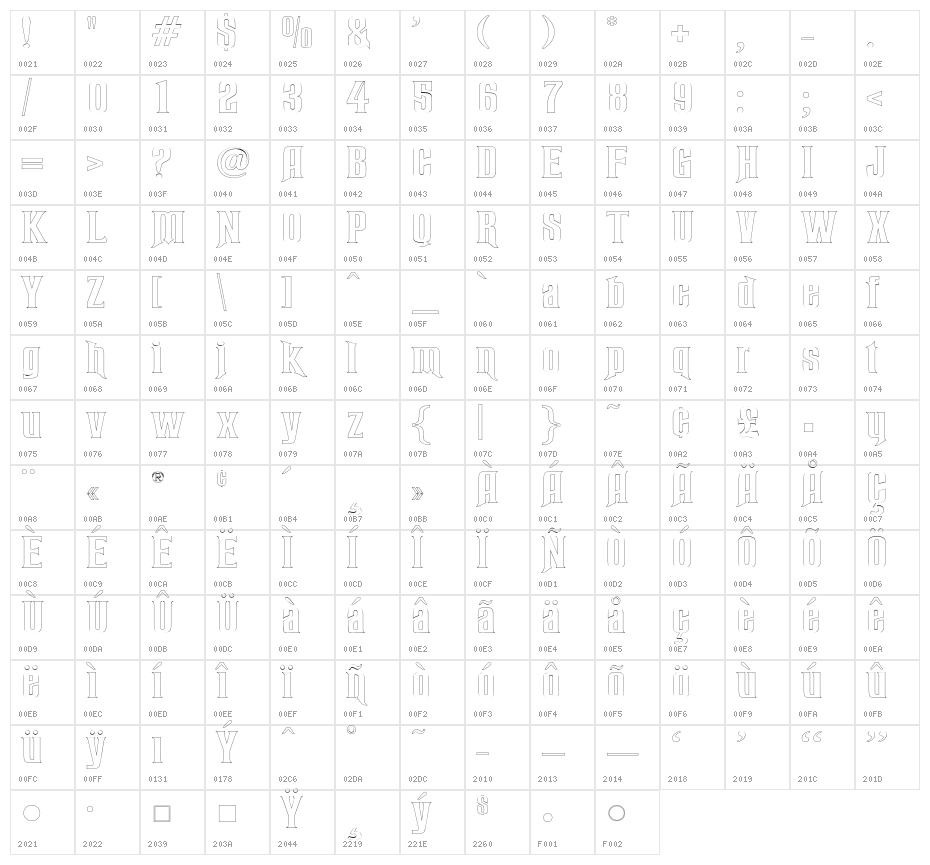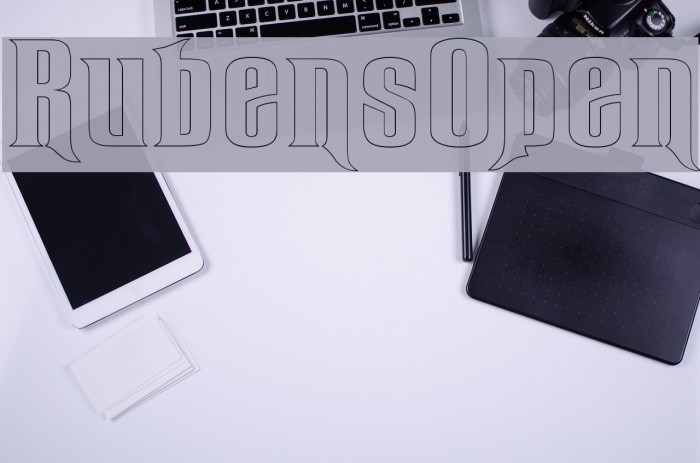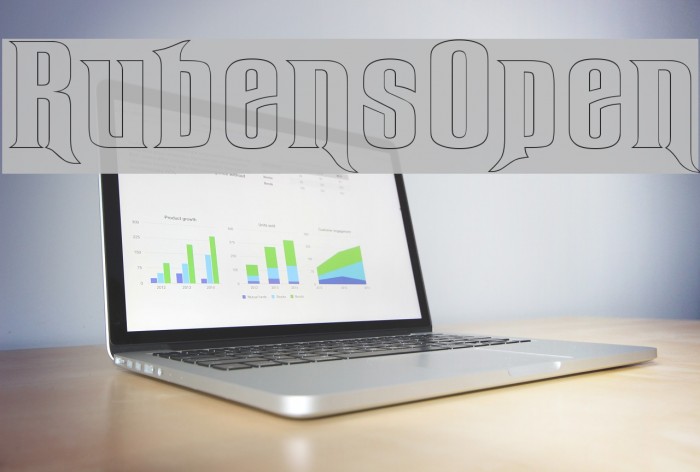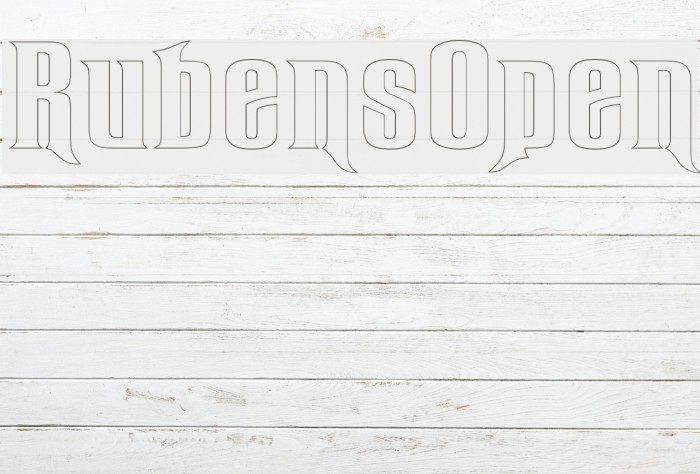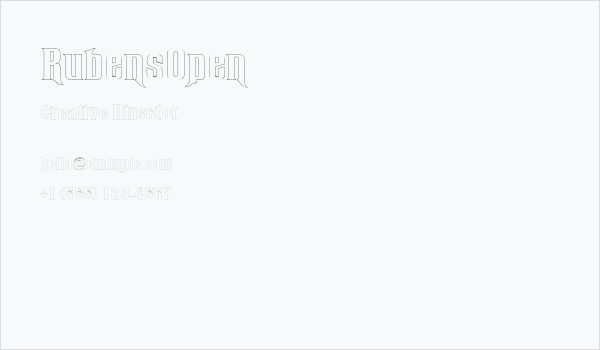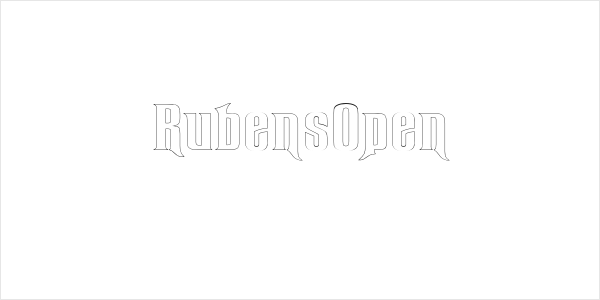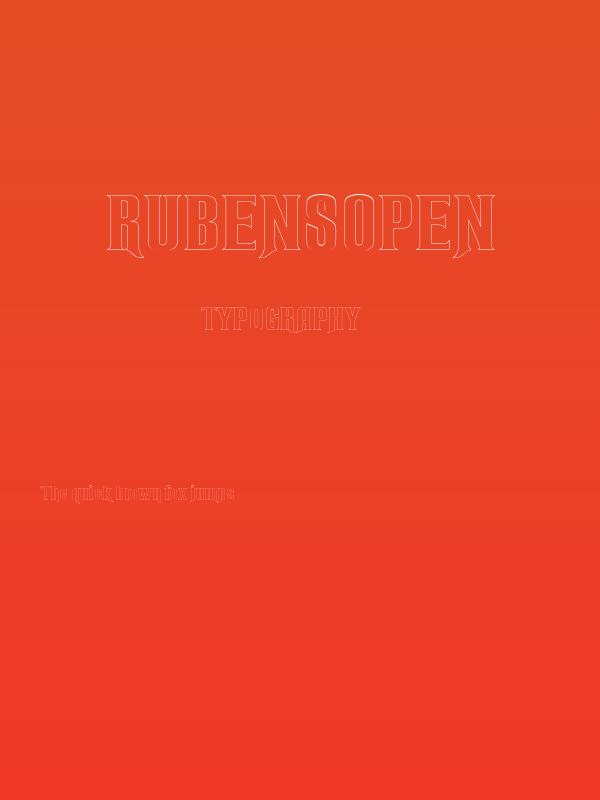
RubensOpen Font
RubensOpen Description
This font features a bold, decorative style with a distinct outline that gives it a striking appearance. The uppercase letters have a strong, angular form with sharp serifs, while the lowercase letters maintain a consistent style with slightly softer edges. The numerals are equally bold and maintain the same decorative outline, ensuring uniformity across all characters. Special characters are designed with the same attention to detail, making them stand out. The overall design is reminiscent of vintage signage, combining a sense of tradition with a modern twist.